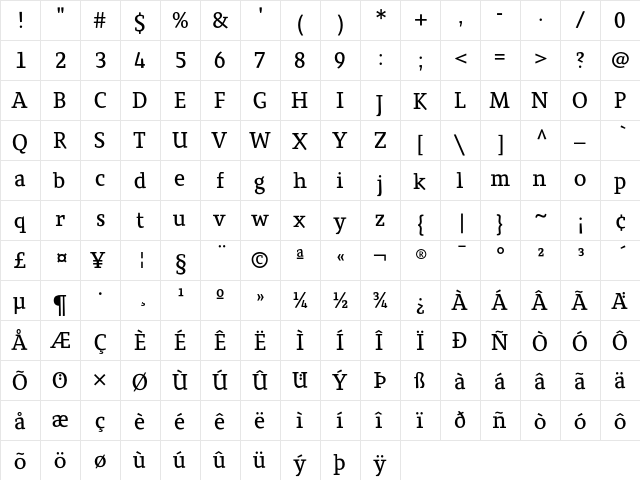
KeuleSlabSerifEF Regular
Design Context for KeuleSlabSerifEF Typeface
KeuleSlabSerifEF combines the readability of serif typography with the visual weight of a slab construction, resulting in a typeface that feels both authoritative and approachable.
Suited to magazines, political campaign materials, bold packaging, and any setting where authority matters.
Pro Tip: Use KeuleSlabSerifEF for headlines and subheadings where its slab serifs can make an impression. It also holds up well in mid-size body copy thanks to its sturdy construction.